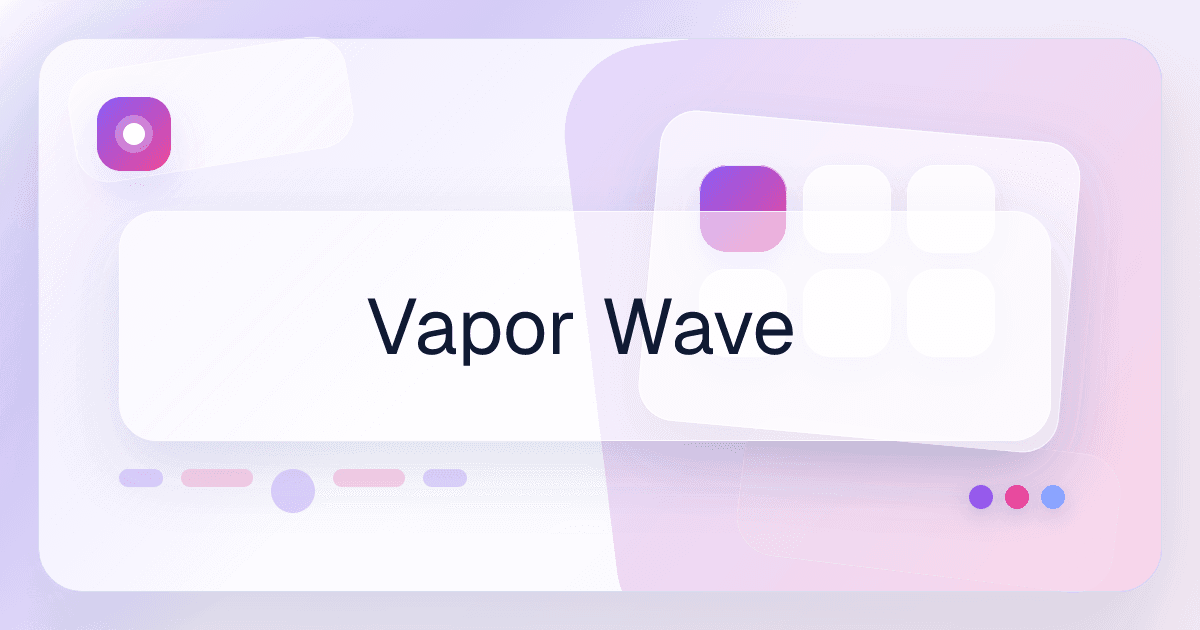
Vapor Wave Fancy Font Styles
Generate stylish, readable text variants tuned for social creators and instant copy-paste use.
Vapor Wave style preview image
Category: aesthetic
Font pairing: Montserrat Alternates + Outfit
Why people use Vapor Wave
Generate stylish, readable text variants tuned for social creators and instant copy-paste use.
This style usually fits short bios, captions, usernames, and branded profile text where the visual tone matters as much as the wording.
Best use cases for this style
Vapor Wave works best when the text is short enough to stay readable after styling. Try it first on display names, short captions, headline phrases, and creator labels.
How to keep it readable
Test this style in the target app before publishing. If it feels too dense, use it on the first line only and keep the rest of the copy cleaner.